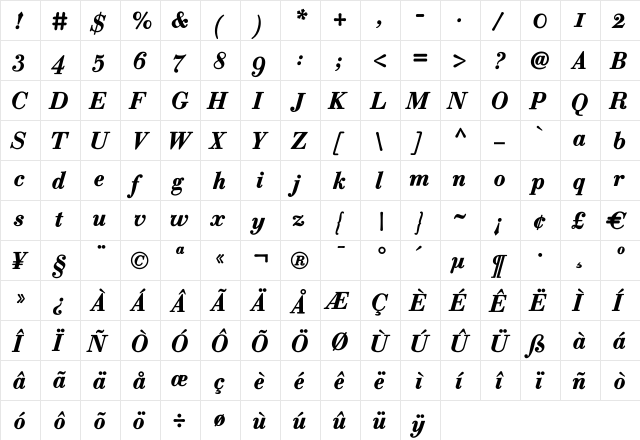
Robusta Bold Italic
Design Context for Robusta Typeface
Robusta takes a measured approach to typography — its balanced proportions and neutral character make it a reliable workhorse for both digital and print work. The slanted form adds forward momentum and visual energy. Its bold stroke weight gives it real presence on the page.
Pro Tip: Use Robusta for emphasis, pull quotes, and subheadings where its slanted energy can add rhythm to the layout.